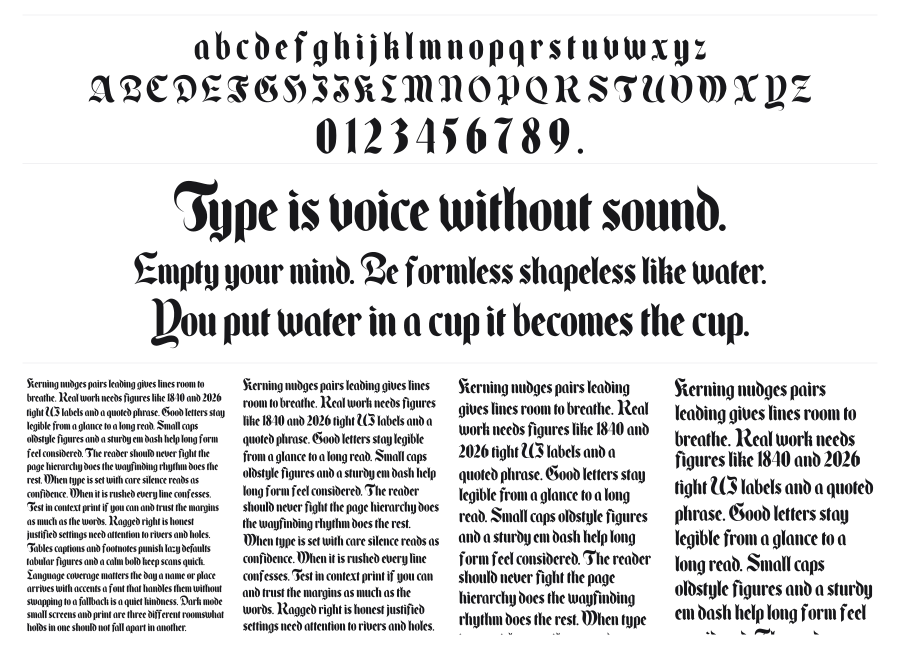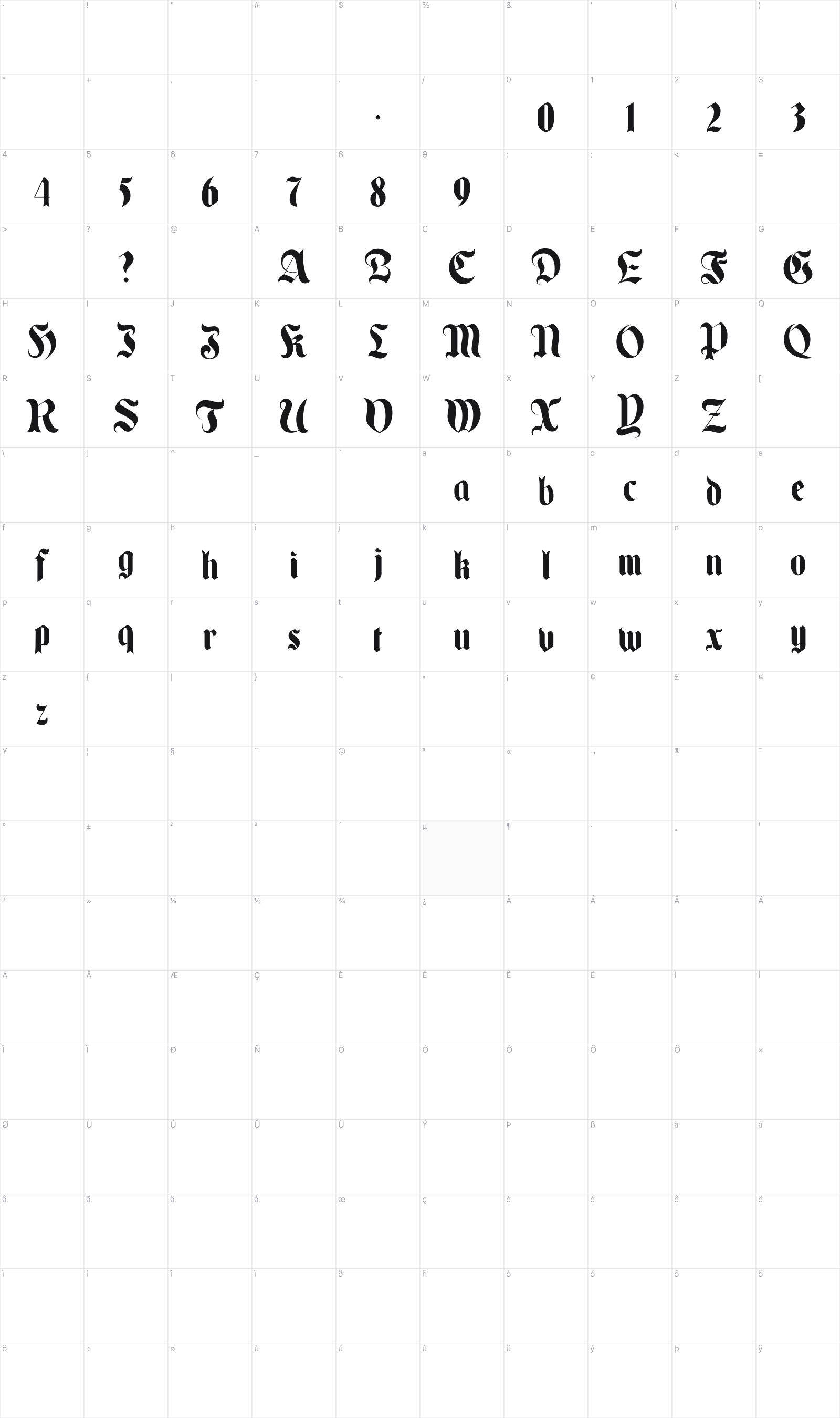
Enchanted Land DS
Enchanted Land DS is a bold blackletter display face by Dennis Ludlow that fuses Old English, German Fraktur, Uncial, and Victorian influences into something distinctly its own. Uppercase characters flow with undulating swashes and flamboyant terminals, while the lowercase holds to a sharper, more structured model, creating a compelling tension across lines of text. The result reads as richly historical without feeling like a historical reproduction.